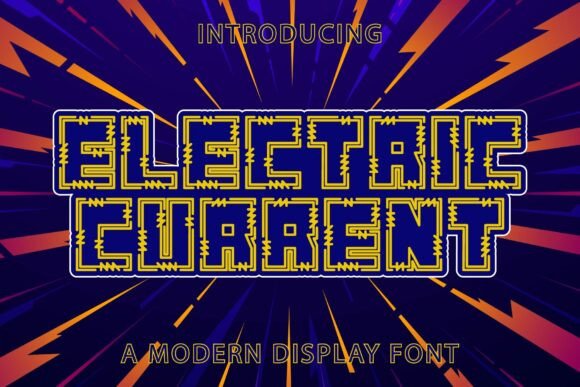
Unleash Your Creativity with Electric Current Font
Are you tired of using the same old fonts for your creative projects? Look no further! Electric Current Font is an incredibly unique display font that is sure to take your designs to the next level. Masterfully designed to become a true favorite, this font has the potential to bring each of your creative ideas to the highest level.
What Makes Electric Current Font So Special?
Electric Current Font is a one-of-a-kind display font that is designed to make a statement. Its unique and bold design makes it perfect for a variety of creative projects, from posters and flyers to logos and branding materials. The font’s sleek and modern look is sure to grab attention and leave a lasting impression.
Key Features of Electric Current Font
- Unique and Bold Design: Electric Current Font features a unique and bold design that is sure to make your creative projects stand out.
- Highly Versatile: This font is perfect for a variety of creative projects, from posters and flyers to logos and branding materials.
- Easily Readable: Despite its bold design, Electric Current Font is easily readable, making it perfect for both digital and print projects.
- Masterfully Designed: This font has been masterfully designed to become a true favorite among designers and crafters.
Why Designers and Crafters Love Electric Current Font
Designers and crafters love Electric Current Font for its unique and bold design. This font is perfect for those who want to add a touch of elegance and sophistication to their creative projects. The font’s sleek and modern look is sure to grab attention and leave a lasting impression.
How to Use Electric Current Font in Your Creative Projects
Electric Current Font can be used in a variety of creative projects, including:
- Posters and Flyers: Use Electric Current Font to create eye-catching posters and flyers that are sure to grab attention.
- Logos and Branding Materials: This font is perfect for creating unique and memorable logos and branding materials.
- Digital Projects: Electric Current Font is easily readable on digital devices, making it perfect for websites, social media, and other digital projects.
- Print Projects: This font is also perfect for print projects, such as brochures, business cards, and more.
Tips for Getting the Most Out of Electric Current Font
Here are a few tips for getting the most out of Electric Current Font:
- Use it Sparingly: Electric Current Font is a bold font, so use it sparingly to avoid overwhelming your design.
- Pair it with Other Fonts: This font pairs well with other fonts, so experiment with different combinations to find the perfect look for your project.
- Experiment with Colors: Electric Current Font looks great in a variety of colors, so experiment with different colors to find the perfect look for your project.
Electric Current Font is an incredibly unique display font that is sure to take your creative projects to the next level. With its bold and modern design, this font is perfect for a variety of creative projects, from posters and flyers to logos and branding materials. Whether you’re a designer or crafter, Electric Current Font is a must-have font that is sure to become a true favorite.